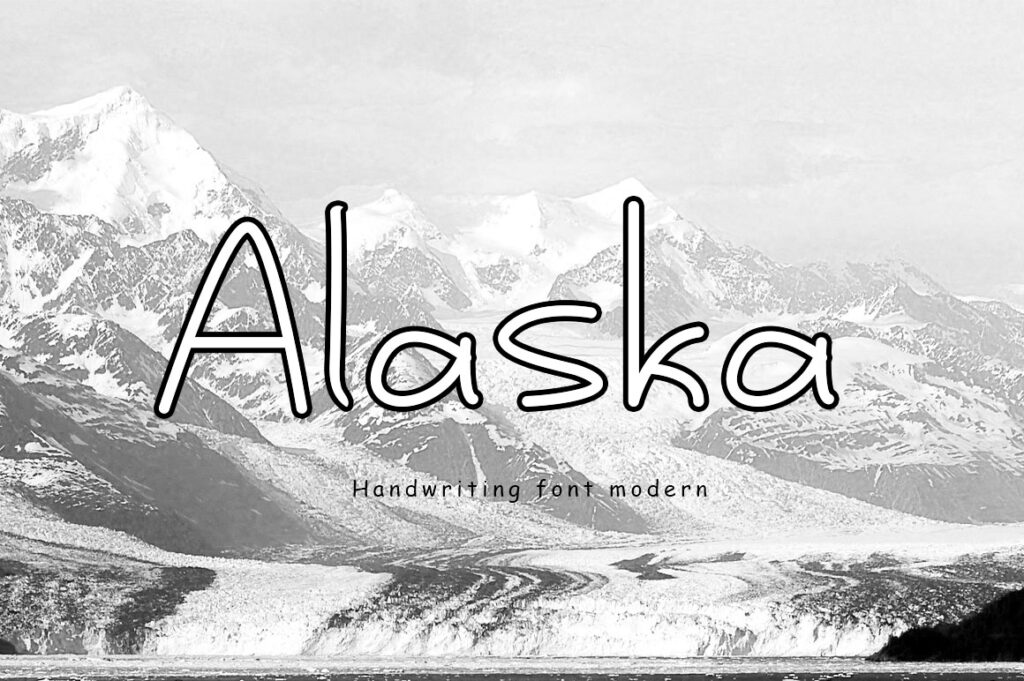
Alaska Display Typeface is a handwritten font suitable for many of your visual needs, like branding materials, merchandise, logos, quotes, posters, and more!
Alaska Typeface